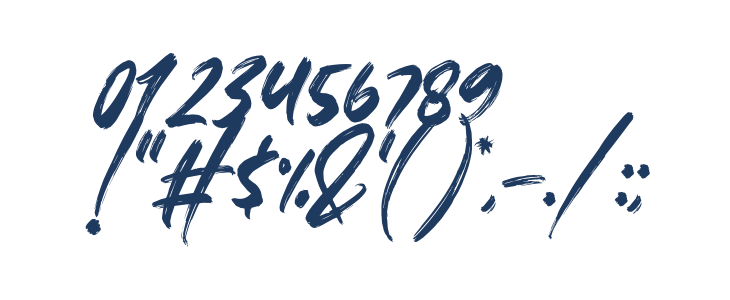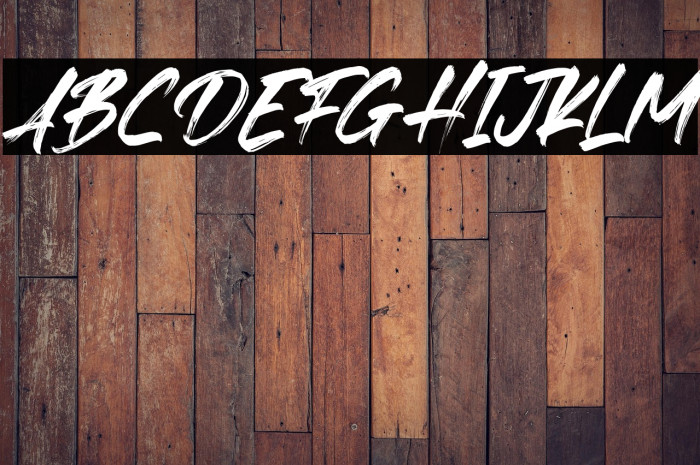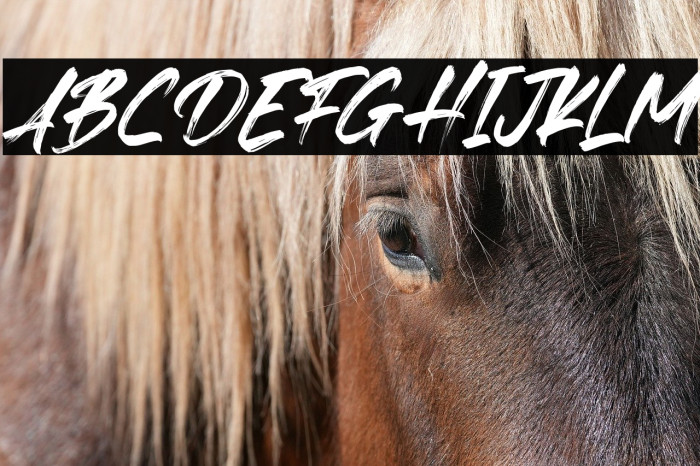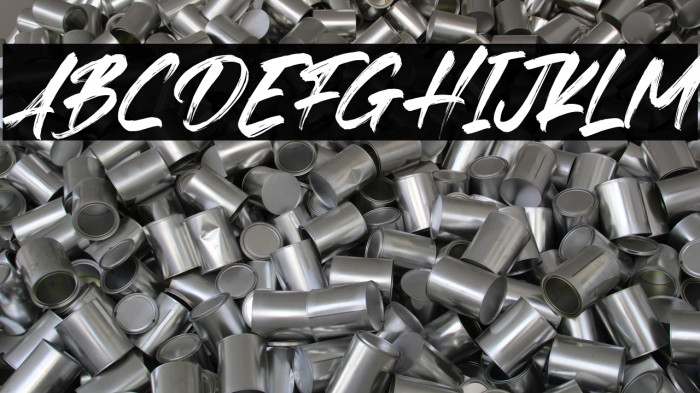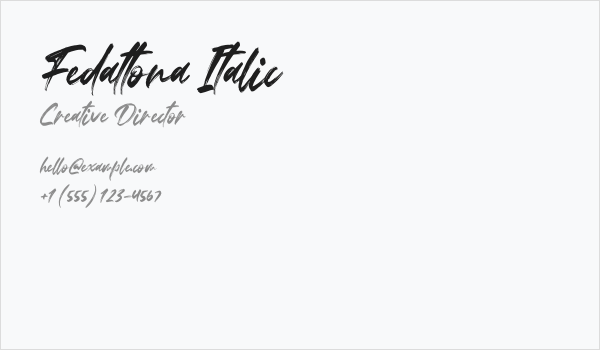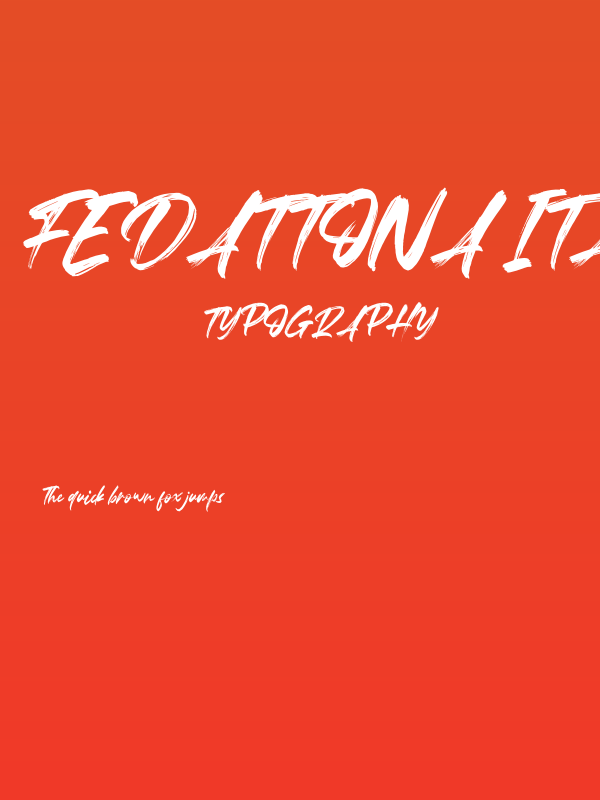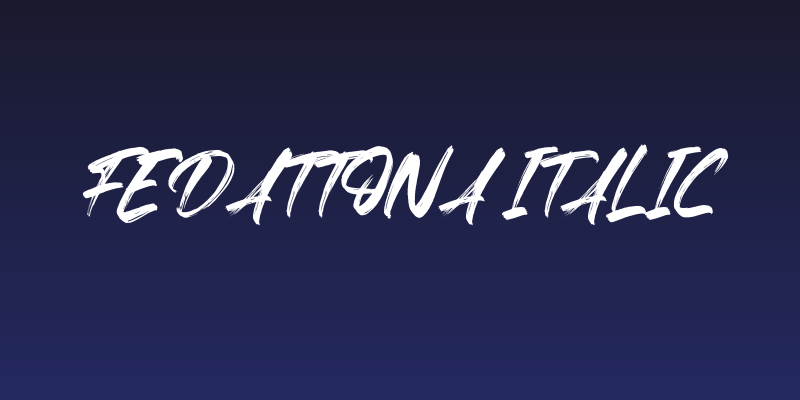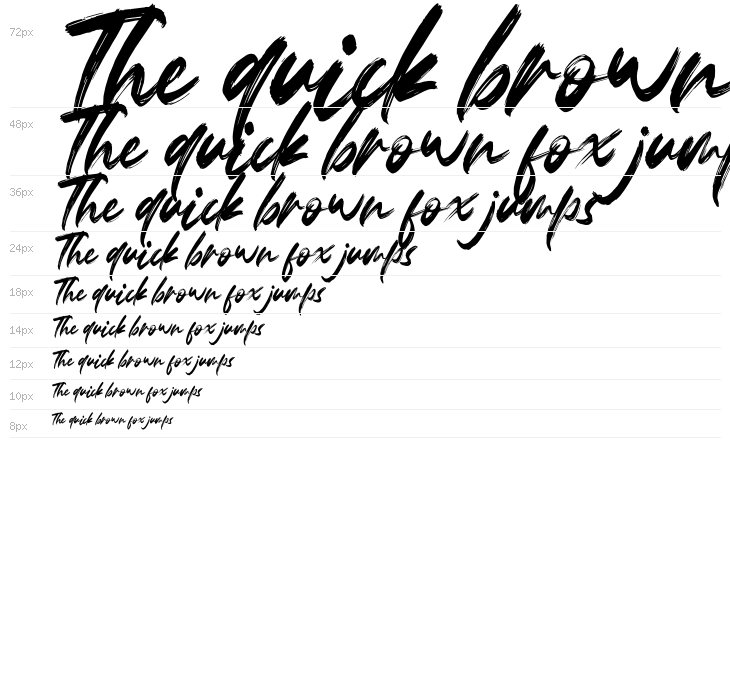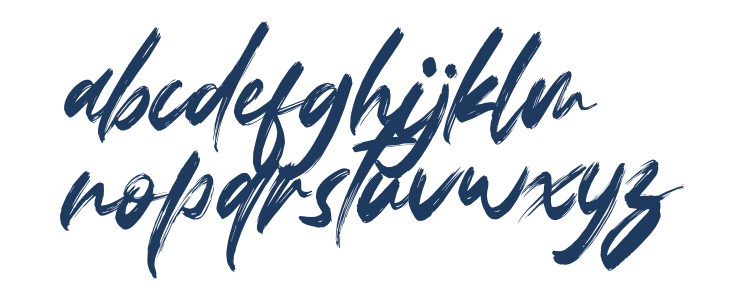
Fedattona Italic Font
Fedattona Italic Description
This font exudes a dynamic and energetic style, characterized by its bold, brush-like strokes that convey a sense of motion and fluidity. The letters are crafted with a distinct slant, enhancing the italicized appearance and adding a touch of elegance. The uppercase and lowercase letters maintain a consistent flow, with each character seamlessly transitioning into the next. The numbers and special characters are equally expressive, maintaining the same artistic flair. This font's unique style makes it stand out, offering a modern twist on traditional calligraphy.
| Proposed Projects | Ideal for branding projects, artistic posters, dynamic logos, and expressive headlines. |